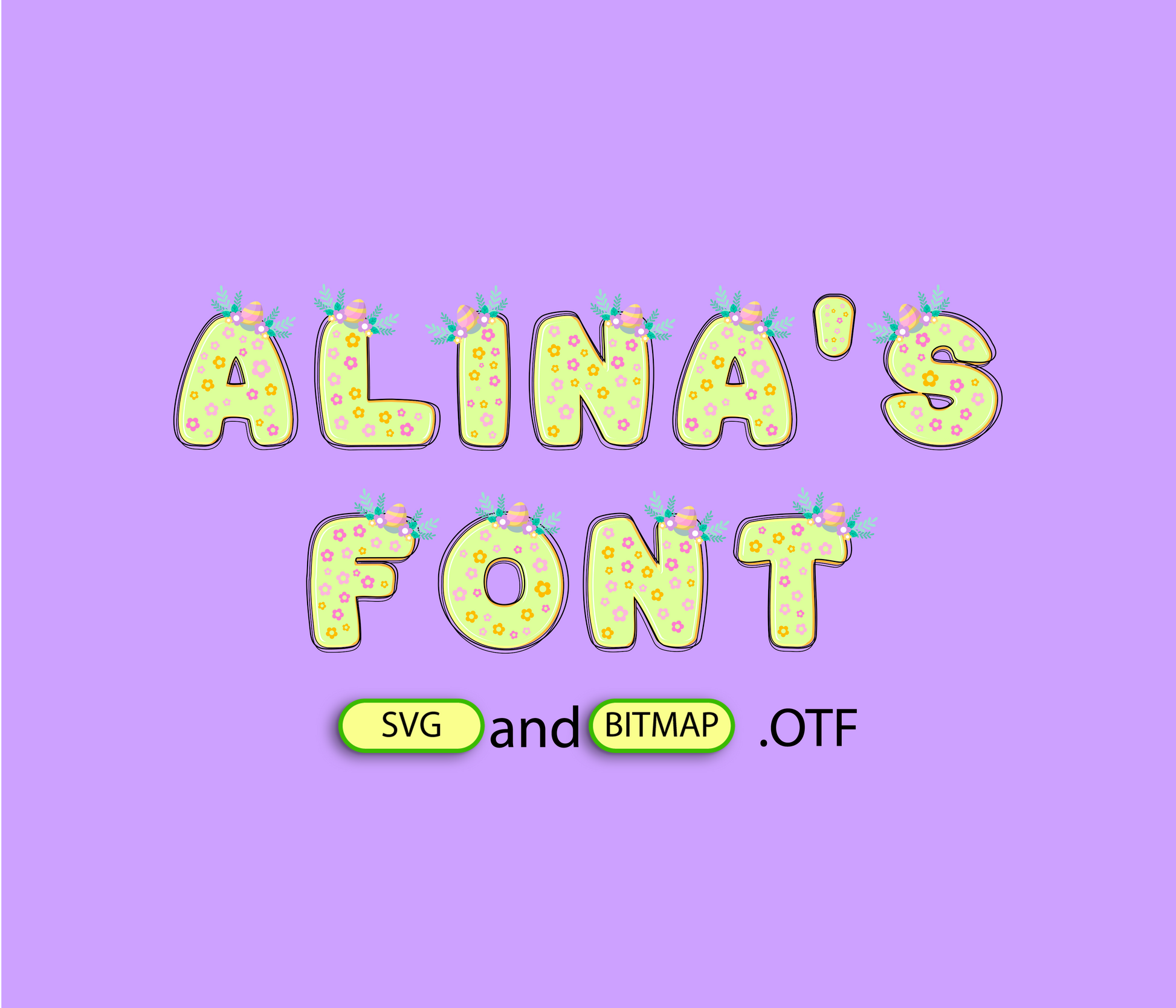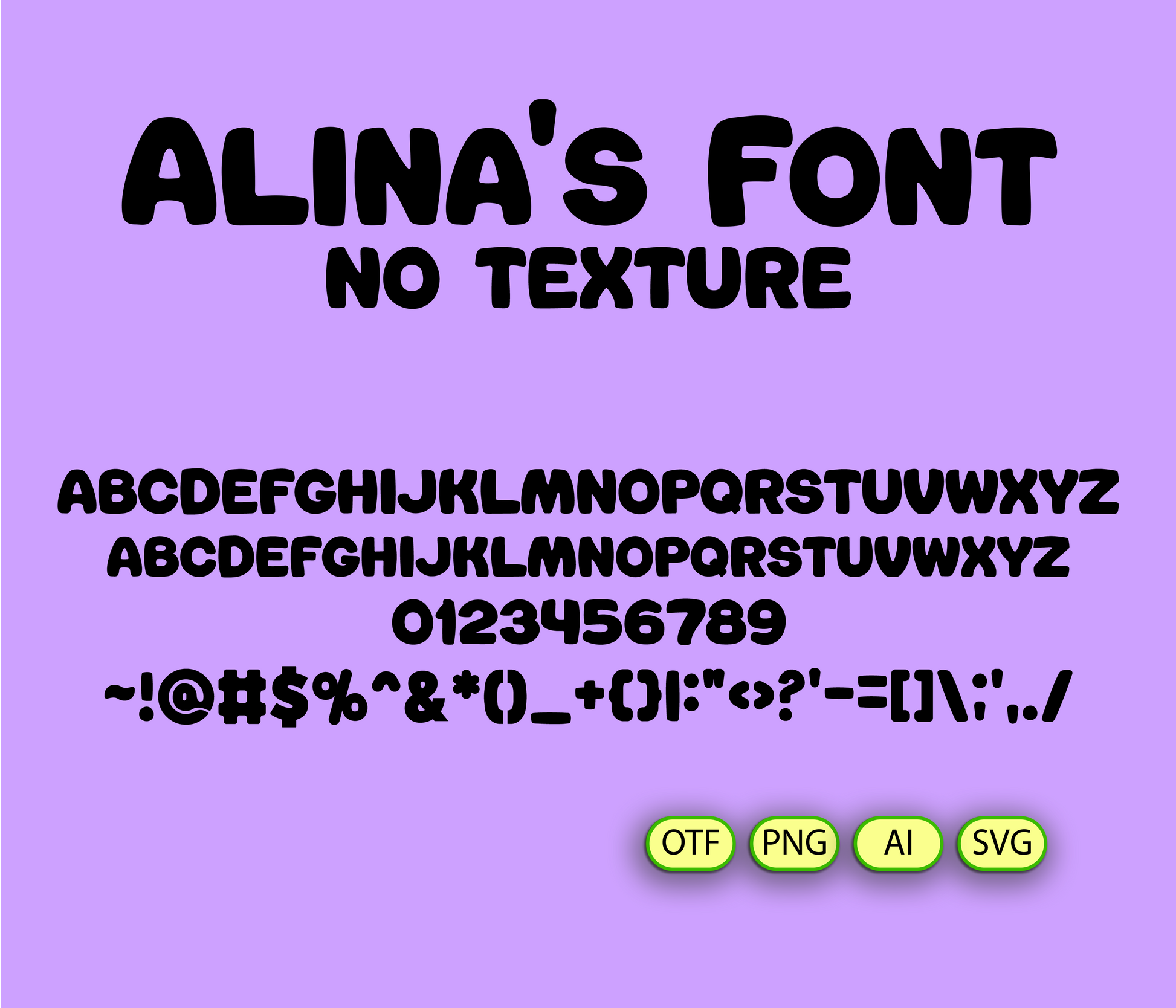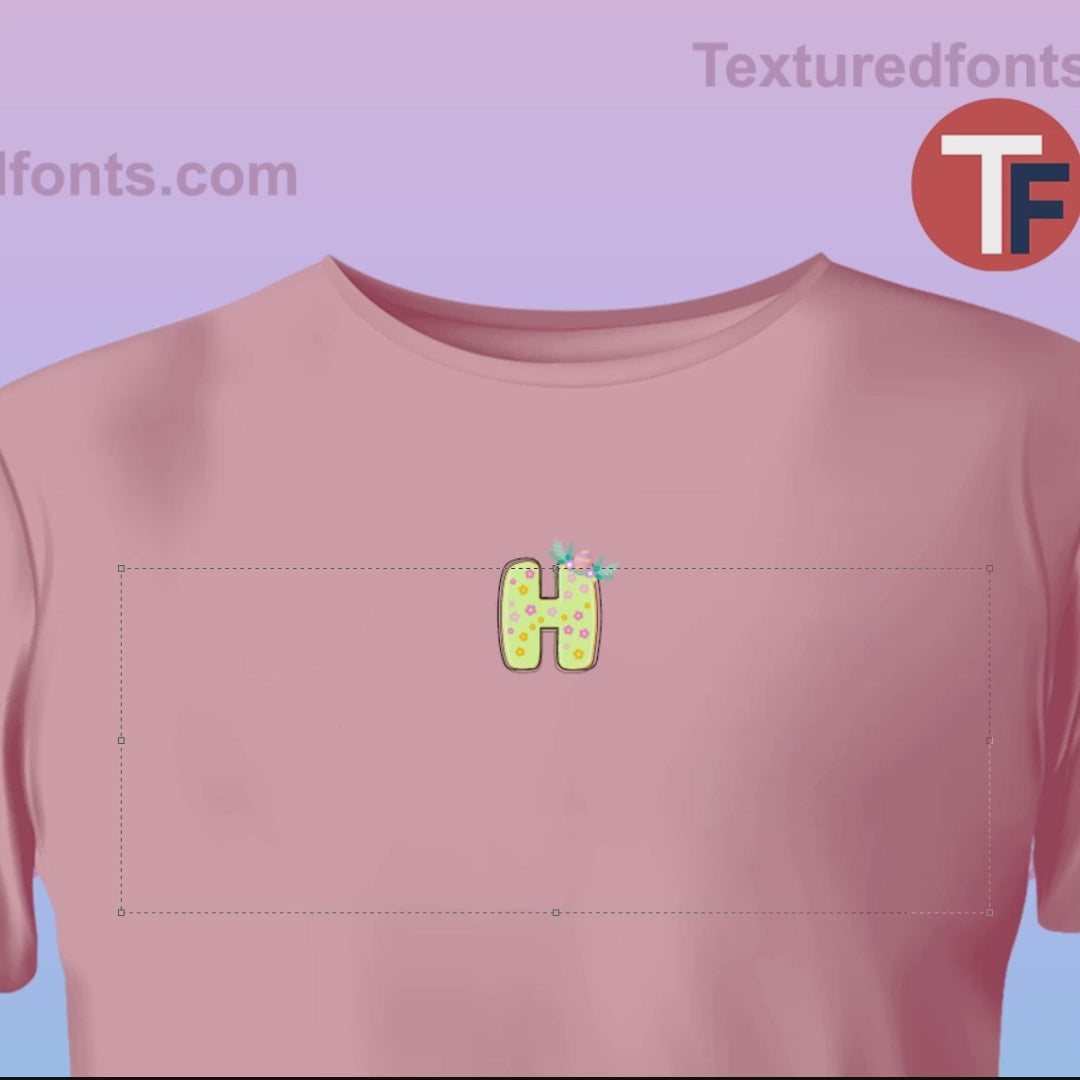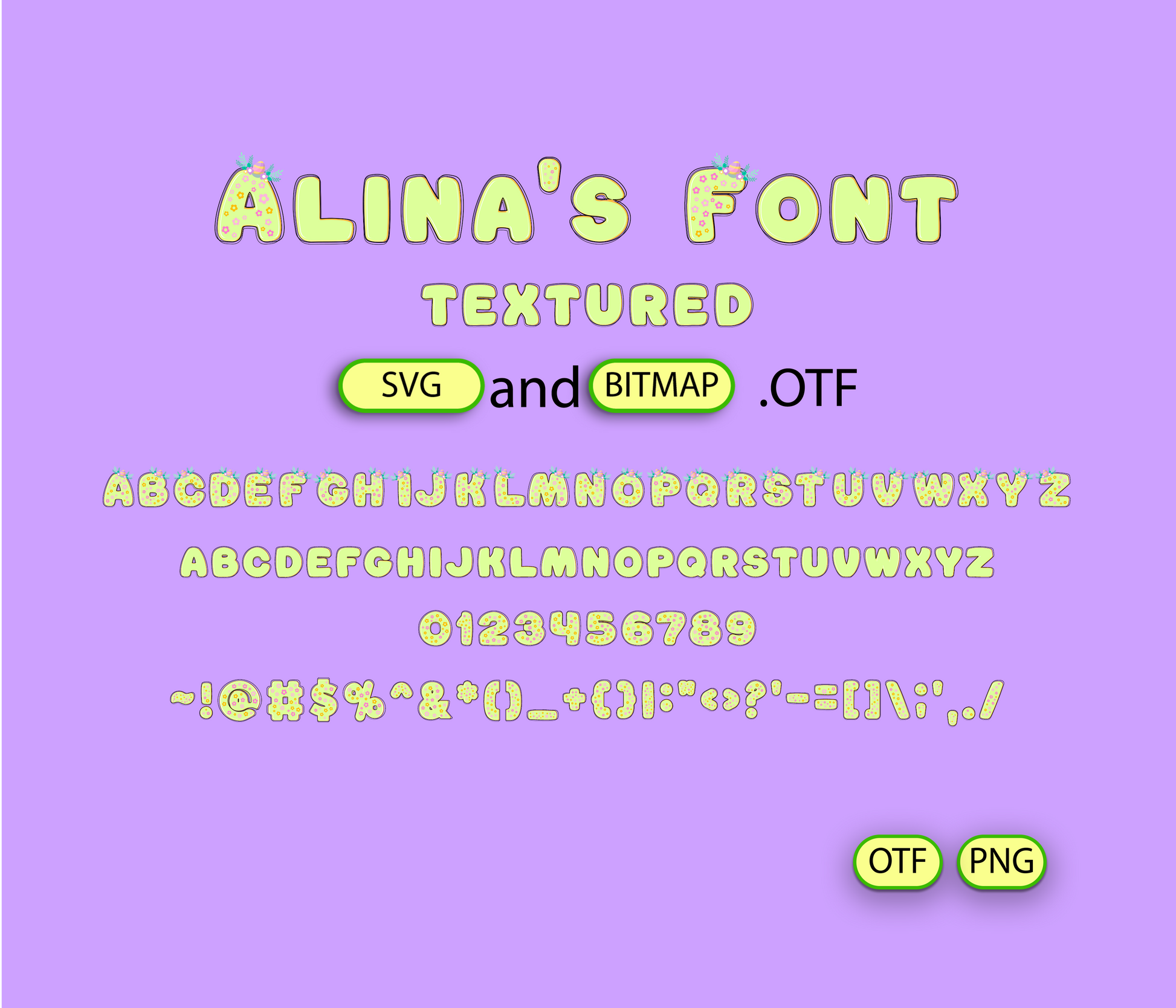
Spring Elegant Floral Pattern Font
Spring Elegant Typeface for Designers Floral Pattern Font
Celebrate the joyous season of renewal with our Easter font, a specially crafted typeface that encapsulates the spirit of Easter with its cheerful and vibrant design. Inspired by the themes of rejuvenation, hope, and festivity that Easter embodies, this font is perfect for a wide range of projects, including festive invitations, engaging social media posts, and heartfelt greeting cards. Whether you're designing materials for an Easter egg hunt, creating a spring-themed project, or simply wishing to spread the warmth and happiness of the Easter season, the Easter font adds a touch of whimsy and freshness to your creations, capturing the essence of this beloved time of year.
Optimized for Canva, the Easter font ensures that users of all design skills can effortlessly incorporate the essence of Easter into their digital designs. This font is a versatile tool for anyone looking to convey messages of renewal and joy, making your Easter-themed projects stand out with charm and creativity. From digital banners to printed materials, the Easter font brings your ideas to life with its festive flair.
Understanding the diverse needs of our users, we've included a FREE no-texture version of the Easter font, ensuring smooth compatibility across all software and making it a flexible choice for both digital and print projects. This adaptability allows the Easter font to seamlessly fit into any design aesthetic, offering a clean and polished look perfect for any Easter or spring-themed project.
Featuring a comprehensive character set and a user-friendly design, the Easter font is accessible to all, inviting users to infuse their projects with the joy and spirit of Easter. Whether you're creating materials for an Easter celebration, personalizing your Easter messages, or adding a seasonal touch to your design portfolio, our Easter font, complete with its no-texture variant, enriches your creations with the vibrant energy and hopeful essence of Easter.